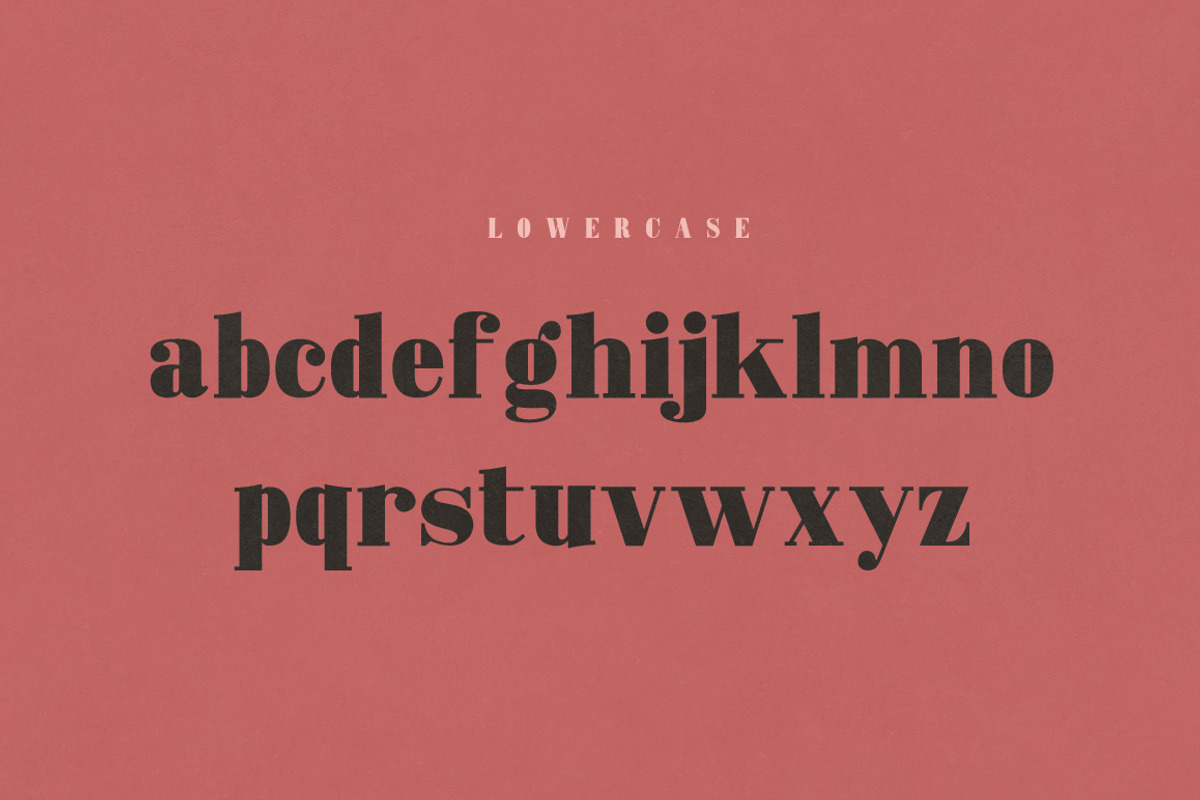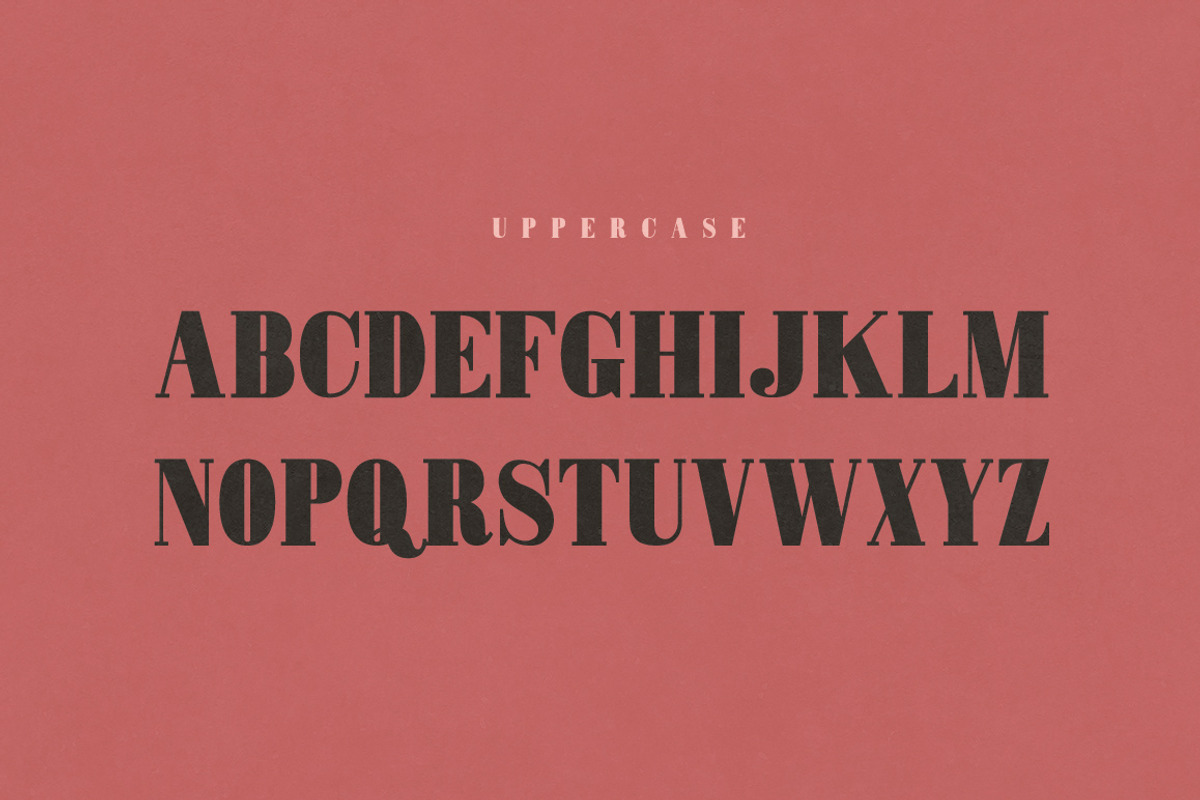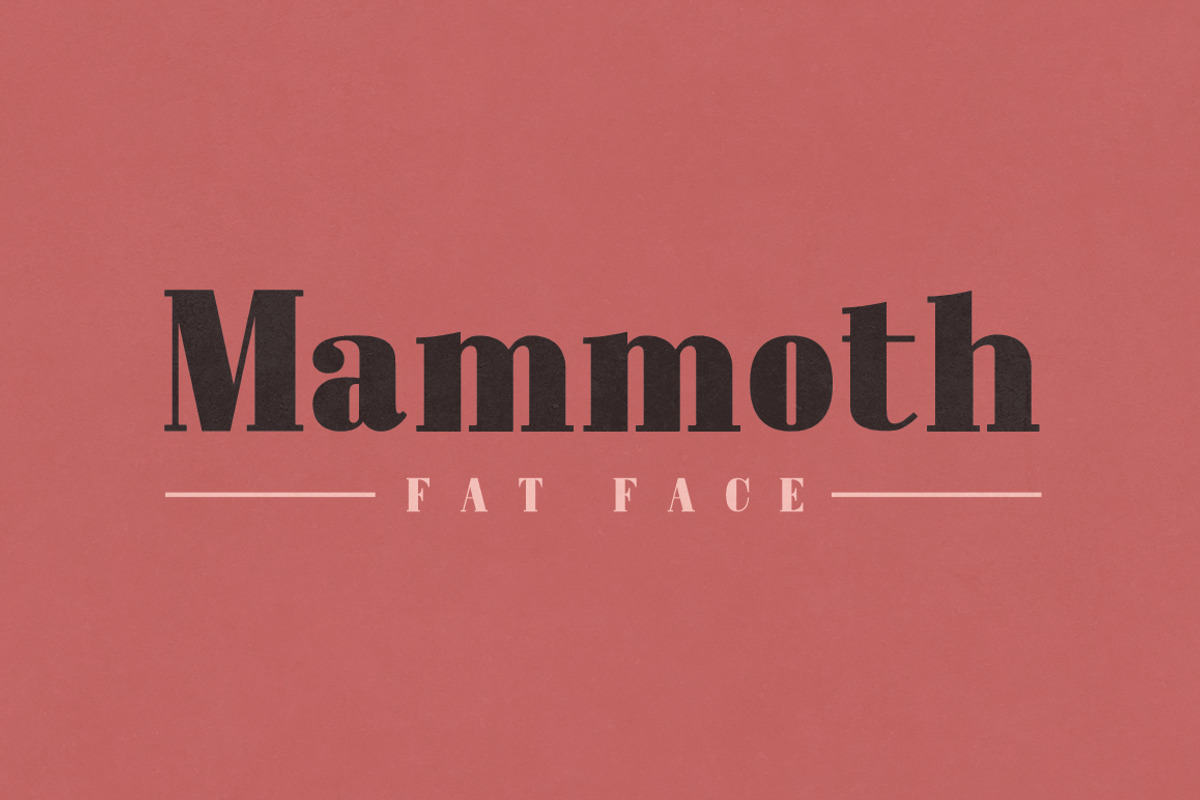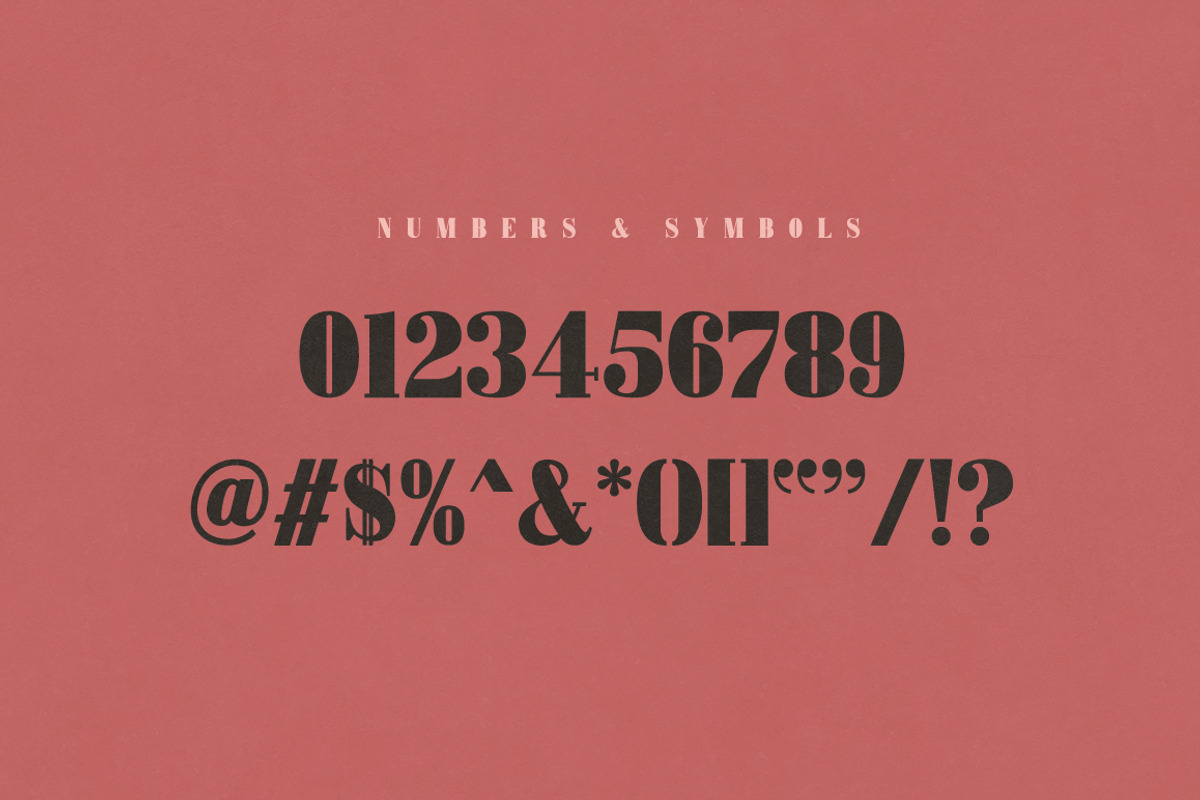
Mammoth Fat Face - Letterpress Font
Mammoth Fat Face - Letterpress Font by Medialoot is a font selected for branding, posters, packaging, typography.
- Includes uppercase, lowercase, numbers and common symbols.
- Mammoth Fat Face
Why Mammoth Fat Face - Letterpress Font is worth a look
Mammoth Fat Face - Letterpress Font by Medialoot fits naturally into Branding, posters, packaging, typography.